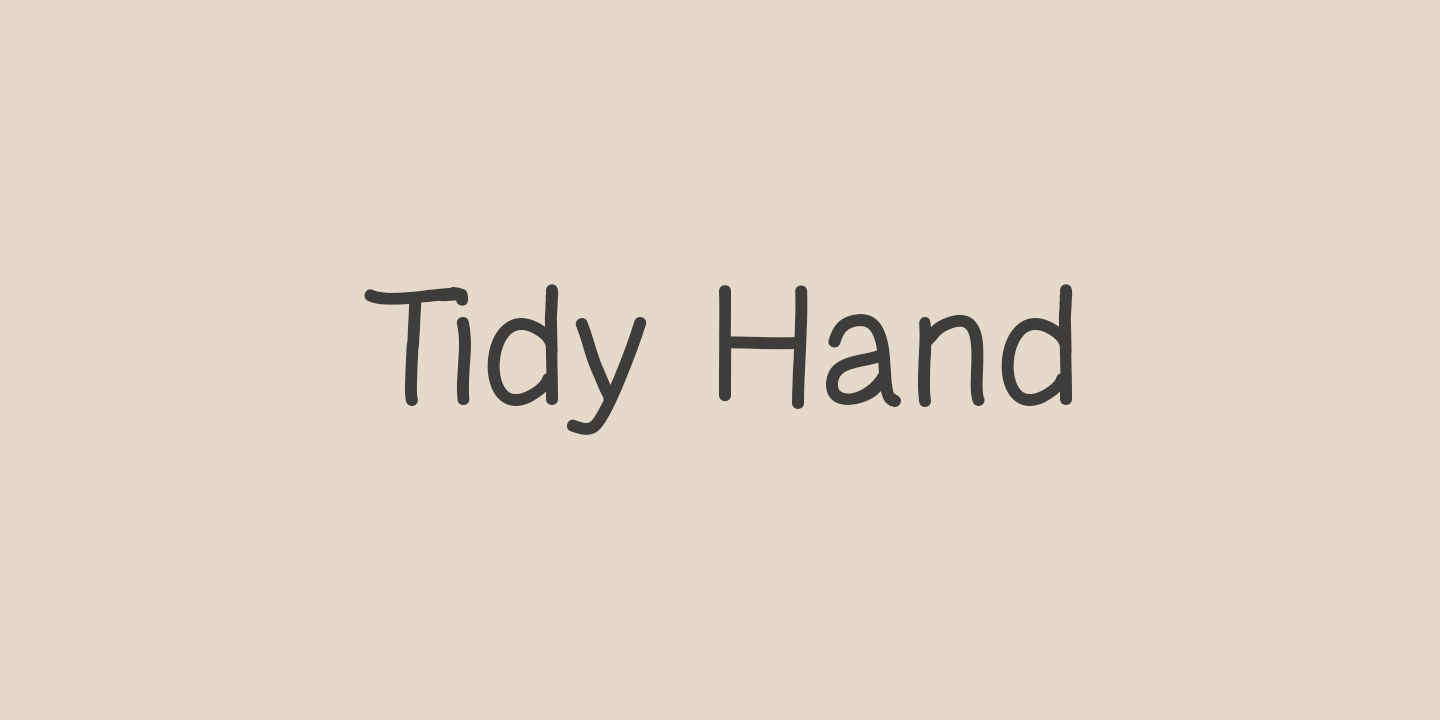
The Tidy Hand Font Free Download is a wonderfully authentic and approachable typeface, making it an excellent choice for designs that aim to convey sincerity, personal charm, and a clean, handcrafted feel. This inviting font is perfectly suited for personal branding, lifestyle blogs, casual cafe menus, handmade product labels, social media graphics, and friendly event invitations. Imagine it adding a comforting touch to a family recipe blog, providing a legible yet unique feel for a local craft shop's signage, or giving a wholesome, warm vibe to a custom stationery design. Its clear lines and distinctive, organic appearance ensure your message is delivered with warmth and an undeniable sense of genuine appeal.
What makes Tidy Hand Font truly exciting is its ability to instantly infuse designs with a feeling of gentle comfort and heartfelt sincerity. It's not just a script or a purely decorative font; it embodies an organic neatness and a friendly character that makes it incredibly appealing. The slightly informal shapes and smooth, consistent strokes give it an authentic, hand-drawn quality that feels personal and approachable without being messy. Designers will appreciate how easily it brings an unpretentious, comforting touch to any project, making it ideal for designs that need to feel friendly, engaging, and visually inspiring with a touch of tender elegance.
The Tidy Hand Font family typically focuses on its singular, expressive style, as its strength lies in its inherent handcrafted and approachable aesthetic. While primarily a display or headline font due to its distinctive nature, you might find a Regular option, with its character providing the main visual impact rather than a wide range of weights. Some versions might offer unique ligatures, alternate characters, or subtle textural variations that enhance its authentic, hand-drawn appearance, allowing for variations in its whimsical charm. These focused design features ensure that the Tidy Hand Font Free Download provides ample creative opportunities to craft truly charming, authentic, and visually captivating designs that resonate with warmth and a sense of inviting simplicity.